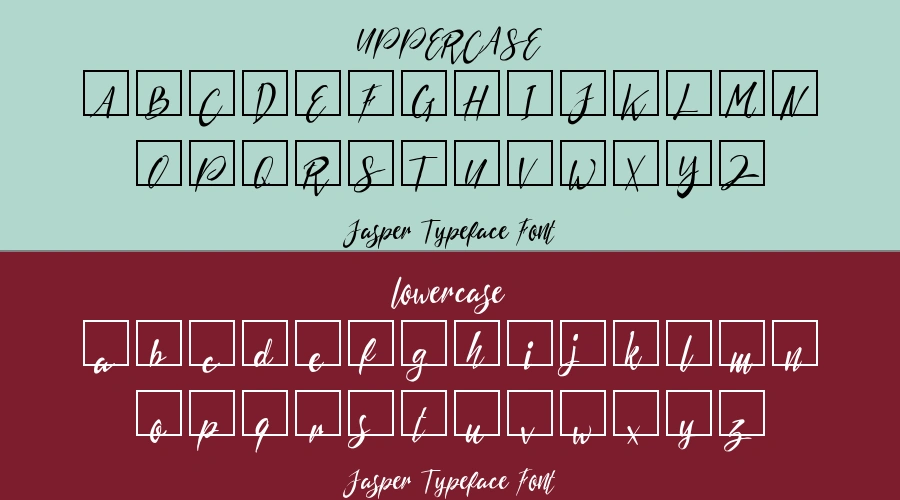
About Jasper Typeface Font
Designed with precision, Jasper Typeface Font merges pen-inspired details with precision in every character. This versatility makes it particularly effective for corporate reports, where reliability and quality certification directly impact communication quality. Each letterform demonstrates meticulous craftsmanship.
Technical excellence shines through elements like refined proportions and isolated forms, enhancing typographic versatility. In digital banners settings, Jasper Typeface Font proves its worth through superior versatility. The thoughtful execution of letterfit and technical innovation ensures professional results.